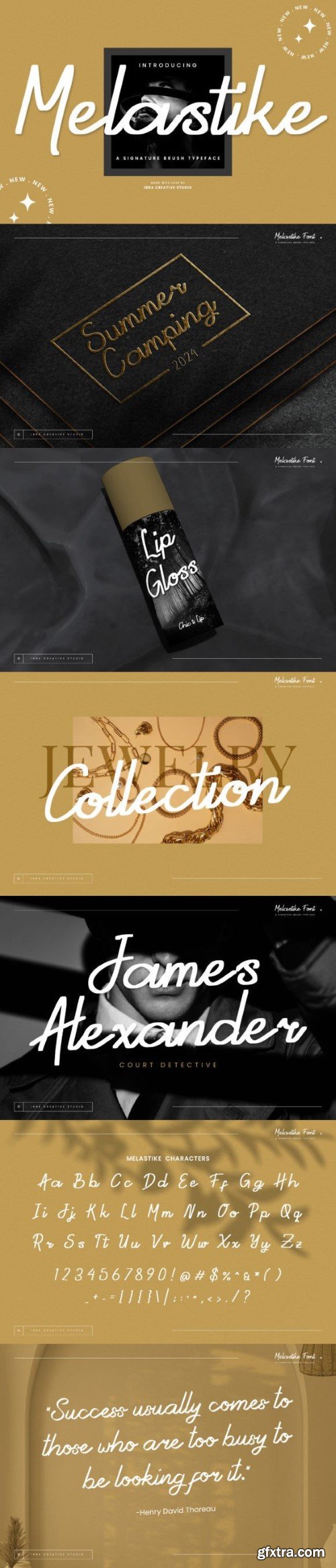
暮斯塔基字体
Melastike, a signature brush typeface, embodies the essence of elegance and personalized flair. With its fluid strokes and distinctive brush texture, Melastike creates an authentic handwritten feel, making it ideal for projects that demand a touch of individuality and sophistication. This typeface seamlessly merges a sense of casual ease with a refined aesthetic, allowing it to lend a distinct character to branding, invitations, or any design seeking a handwritten signature touch.